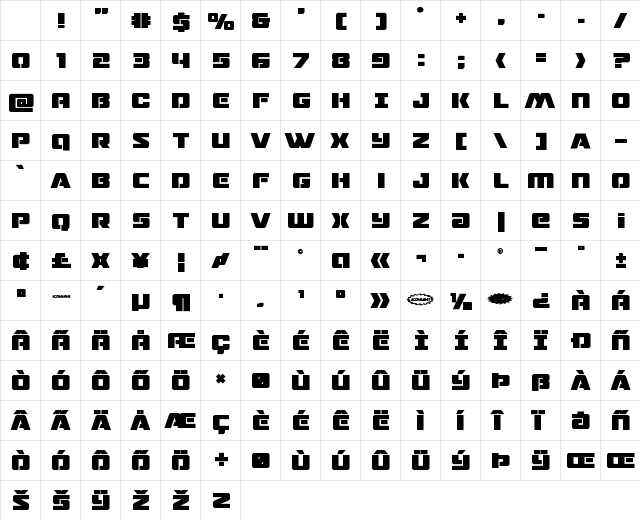
Complete Drone Tracker Bold glyph index. Displaying only characters natively supported by Drone Tracker Bold font.
Drone Tracker is a composed and adaptable typeface that performs quietly and consistently across a wide range of design contexts. Its bold stroke weight gives it real presence on the page.